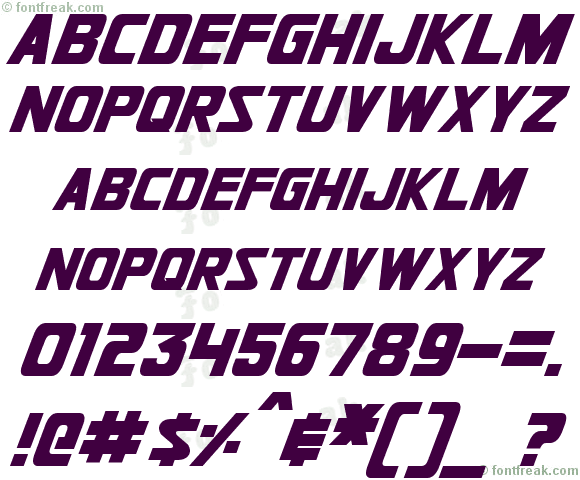
Jhiaxus Oblique
About Jhiaxus Oblique
The Jhiaxus Oblique font, designed by Neale Davidson in 2011, is a striking display typeface that commands attention with its unique visual characteristics. This sans-serif font features a bold, oblique style that conveys a sense of dynamism and forward movement. Its stroke weight is robust, providing a strong presence in any design context. The contrast between thick and thin elements is minimal, creating a uniformity that enhances readability while maintaining visual interest. The spacing is tight, allowing for impactful headlines and titles that stand out in any layout.
Jhiaxus Oblique is versatile in its applications, making it suitable for various creative projects. Its bold and modern aesthetic makes it an excellent choice for movie posters, where grabbing the viewer's attention is paramount. Additionally, this font works well in branding for small businesses, particularly in sectors like technology and entertainment, where a contemporary look is desired. It can also be effectively used in restaurant menus to emphasize specialty dishes or in promotional materials that require a modern flair. Content creators looking to add a unique touch to their designs will find this font equally appealing for online graphics and social media posts.
Targeting graphic designers, small business owners, and content creators, Jhiaxus Oblique offers a distinctive edge that enhances visual storytelling. Its freeware license makes it accessible for various projects, allowing more creatives to incorporate this standout typeface into their work. The Jhiaxus Oblique font free download is an opportunity to elevate your design aesthetic without compromising on quality or originality. This font's boldness and modernity make it a must-have for anyone looking to make a strong impression in their design endeavors.